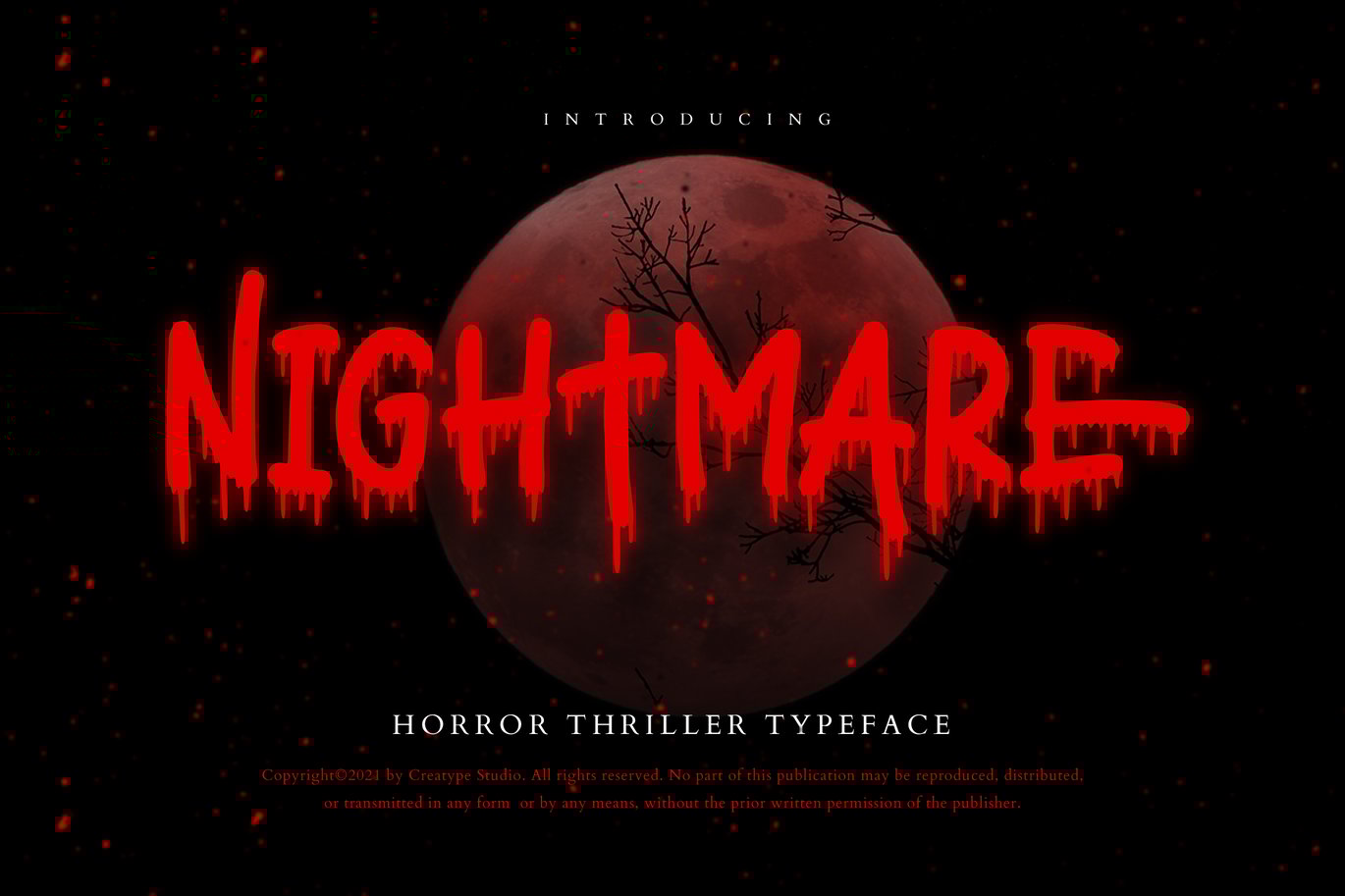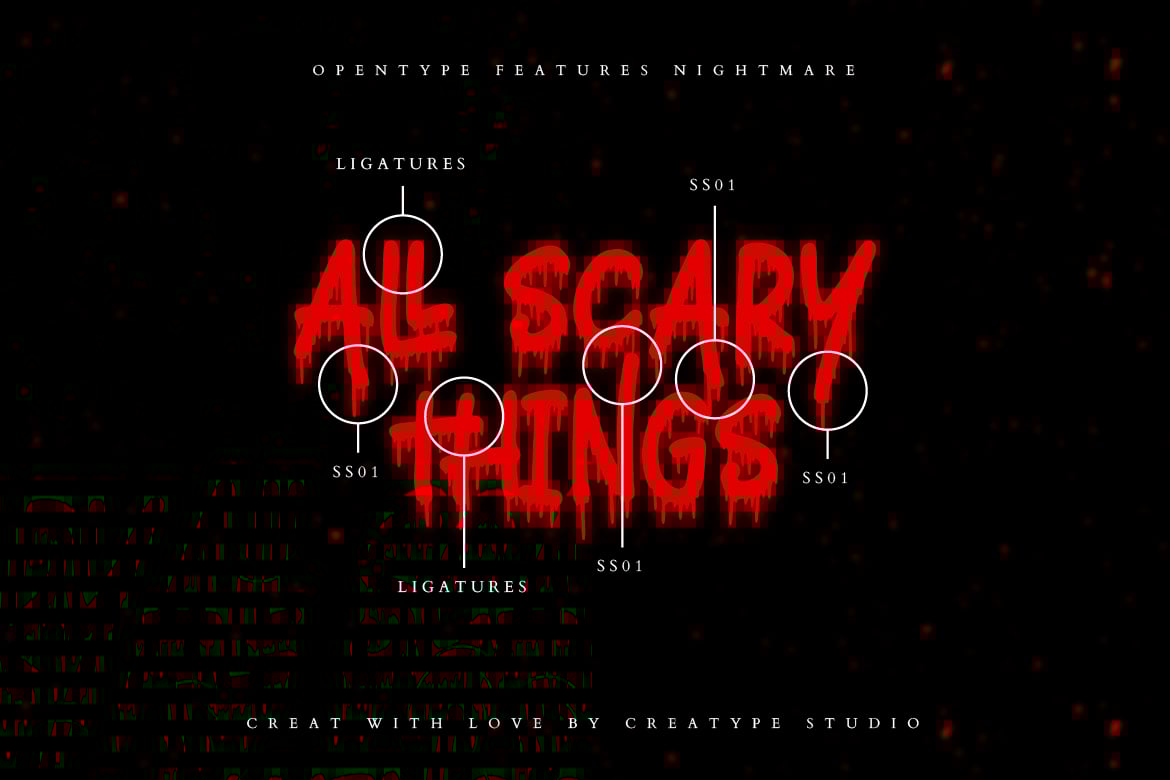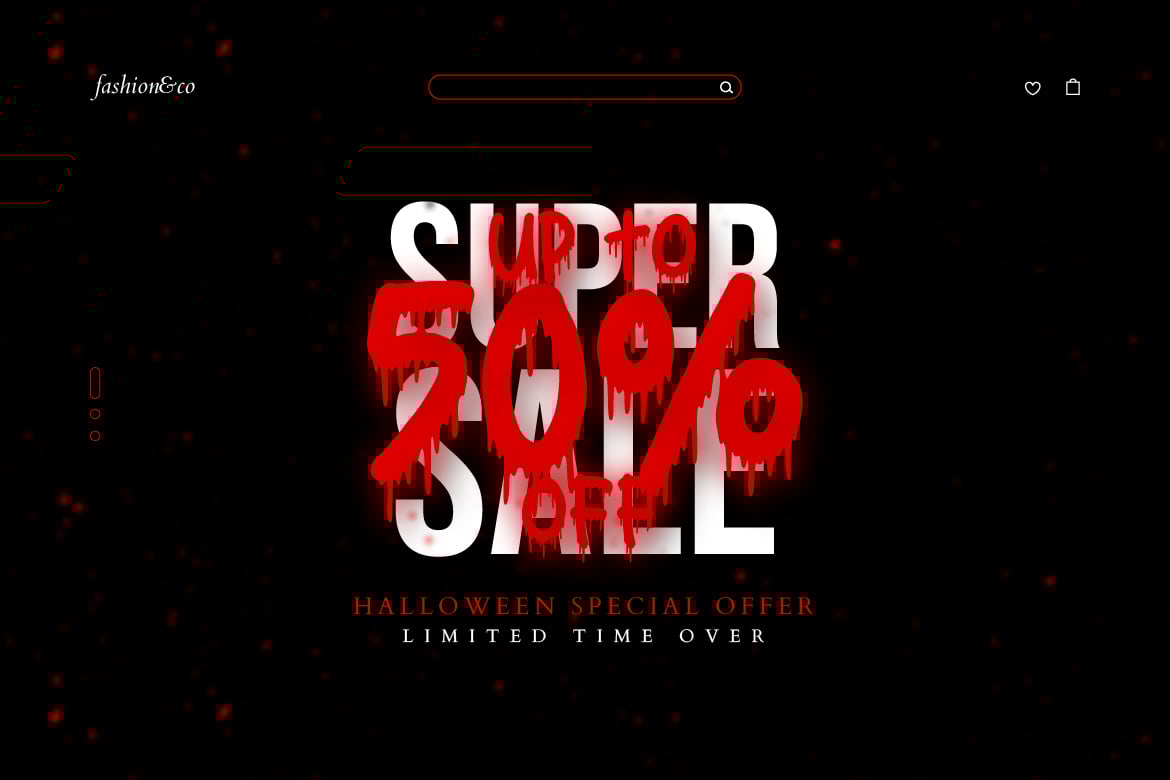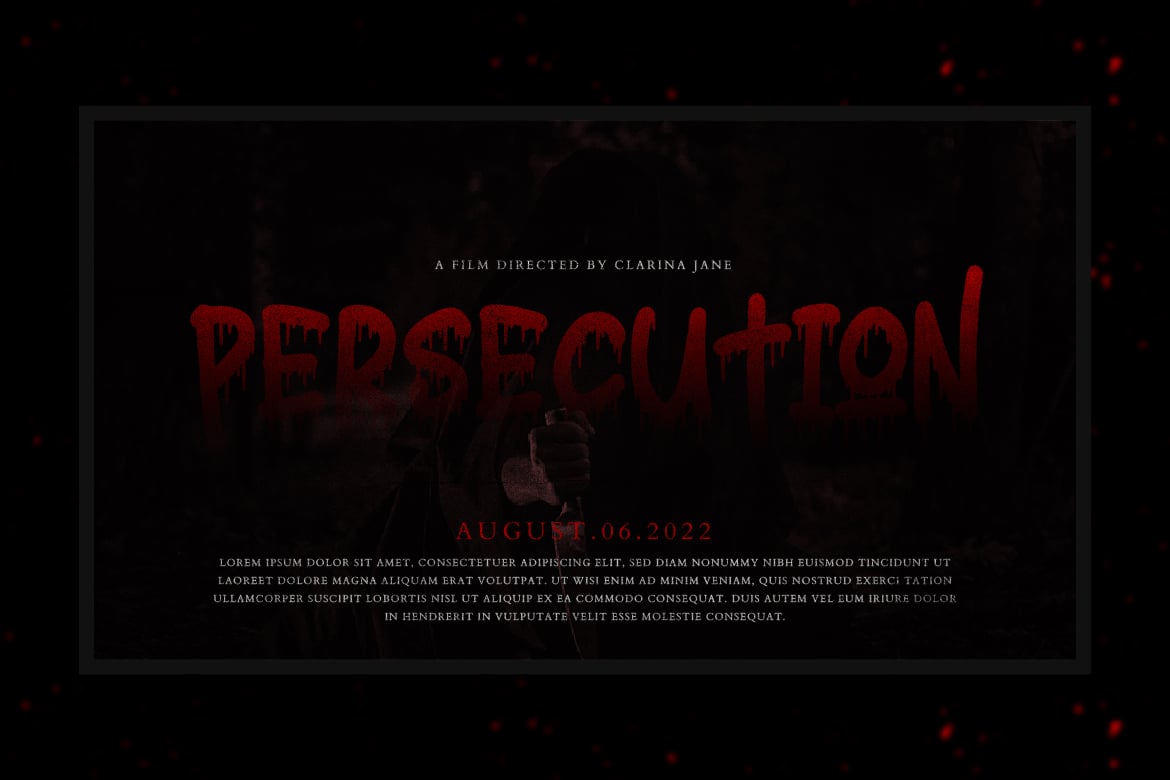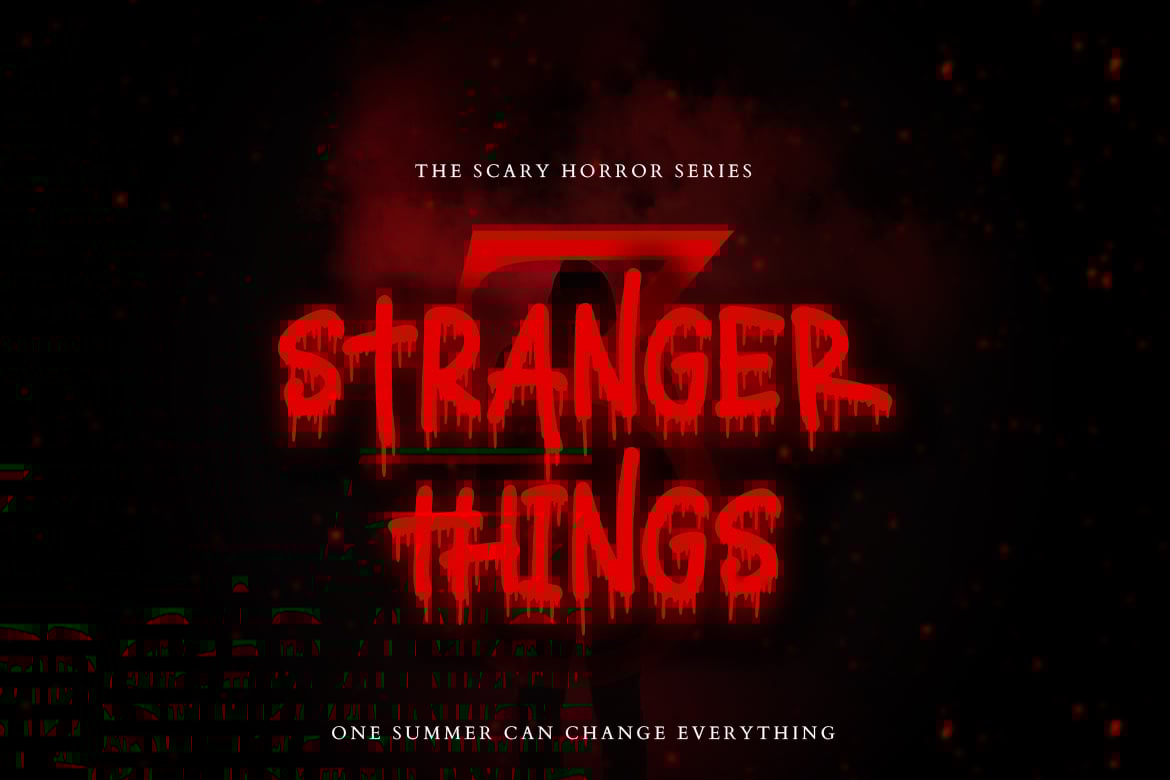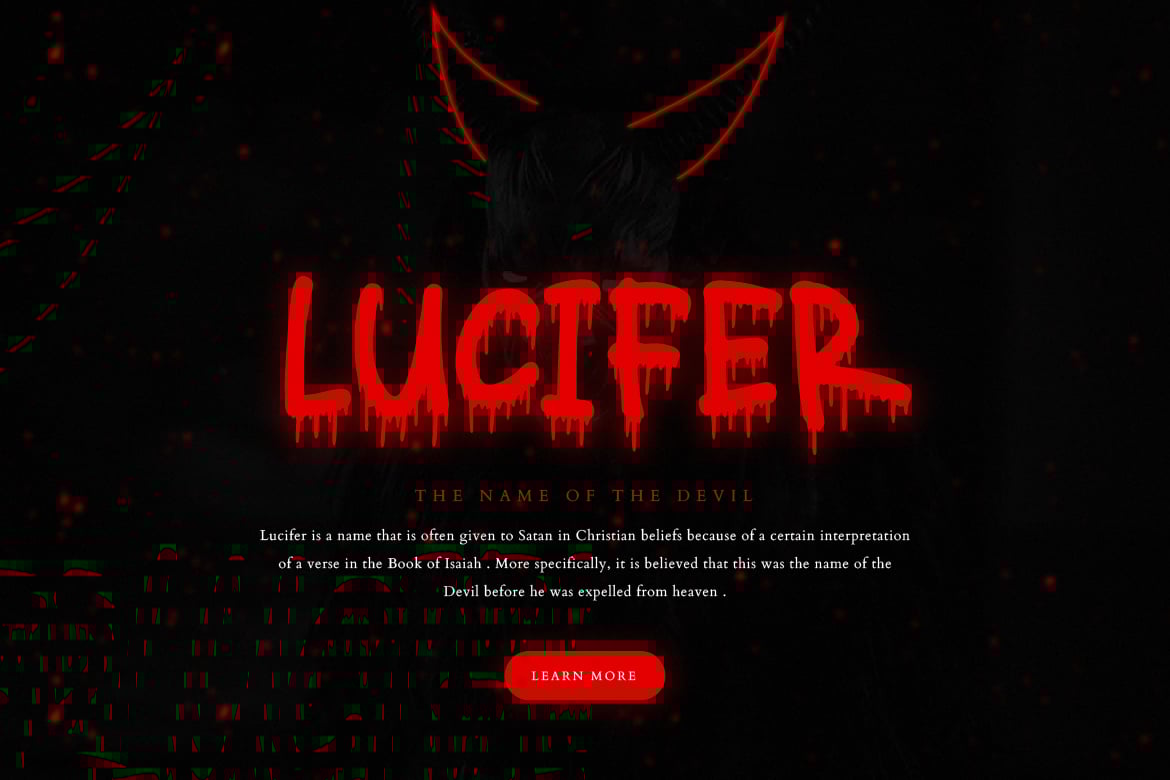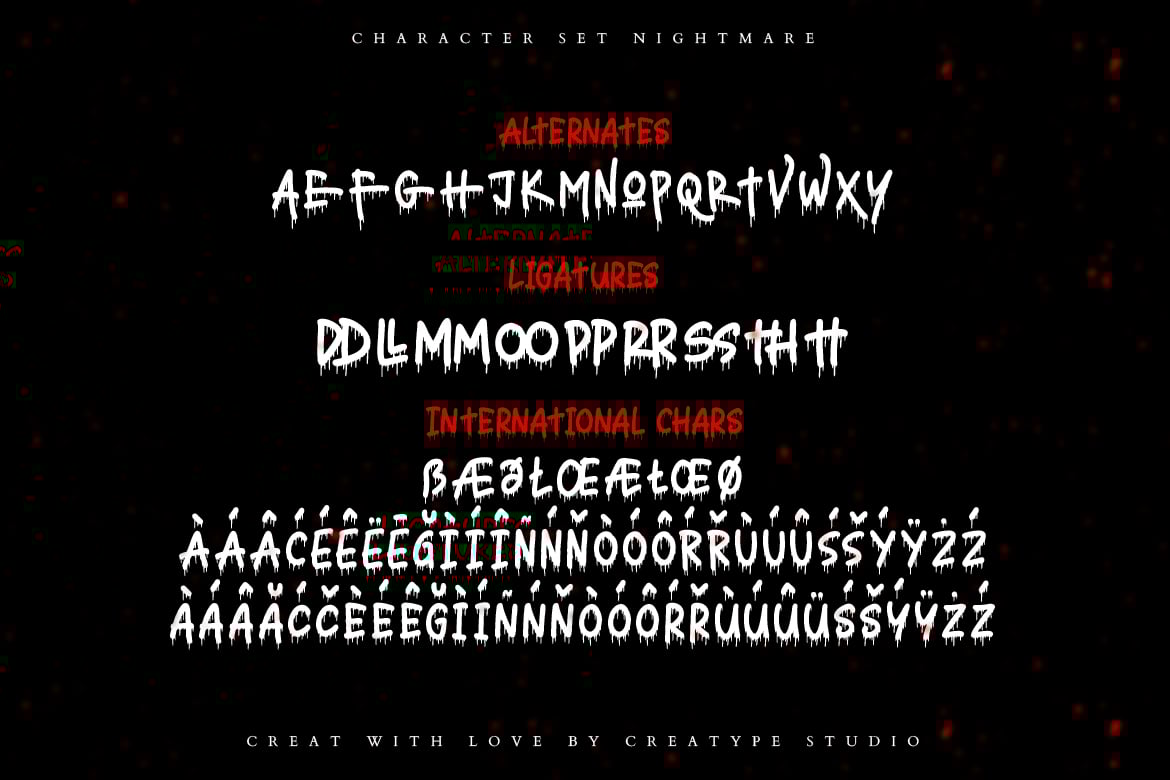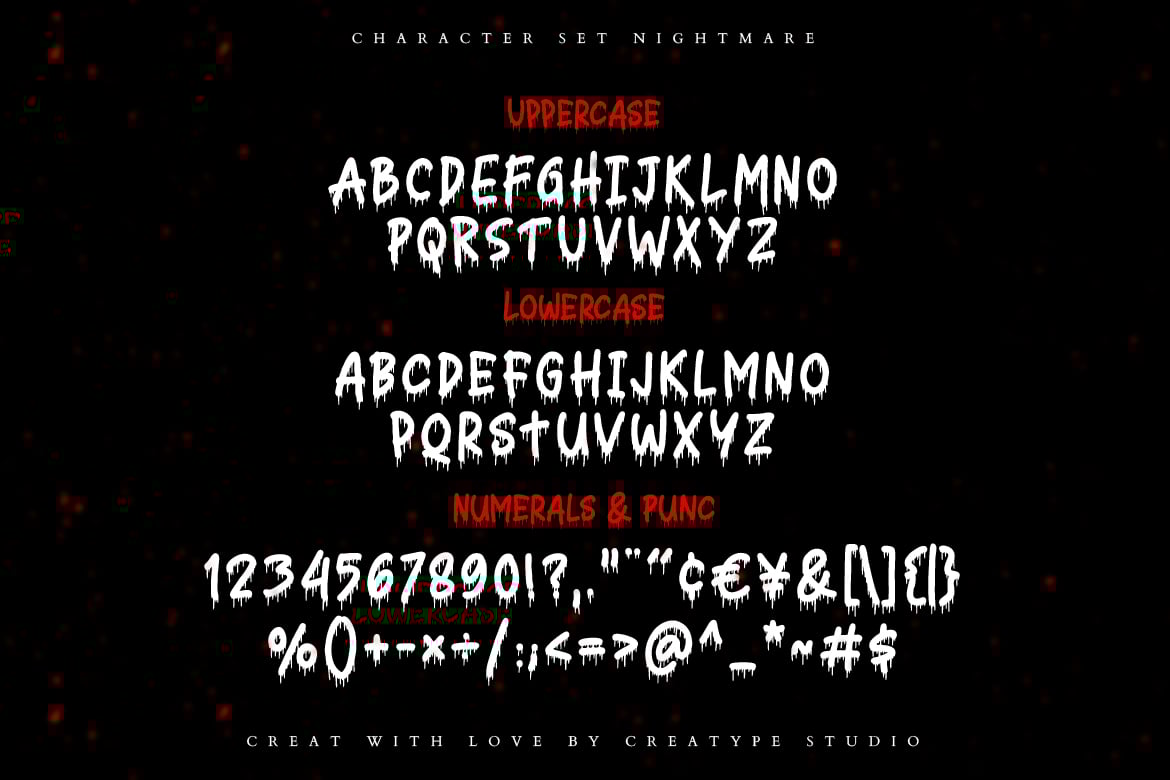
Nightmare Thriller Business Font
Nightmare is a horror thriller typeface specially handcrafted by experts to produce an extraordinary font. With its unique shape, the font looks like it has its own characteristics with a shape like a drop of blood, making this font look so scary.
Nightmare is perfect for branding projects, logo, wedding designs, social media posts, advertisements, product packaging, product designs, label, photography, watermark, invitation, stationery and any projects that need handwriting taste.
- Ligature & Alternate